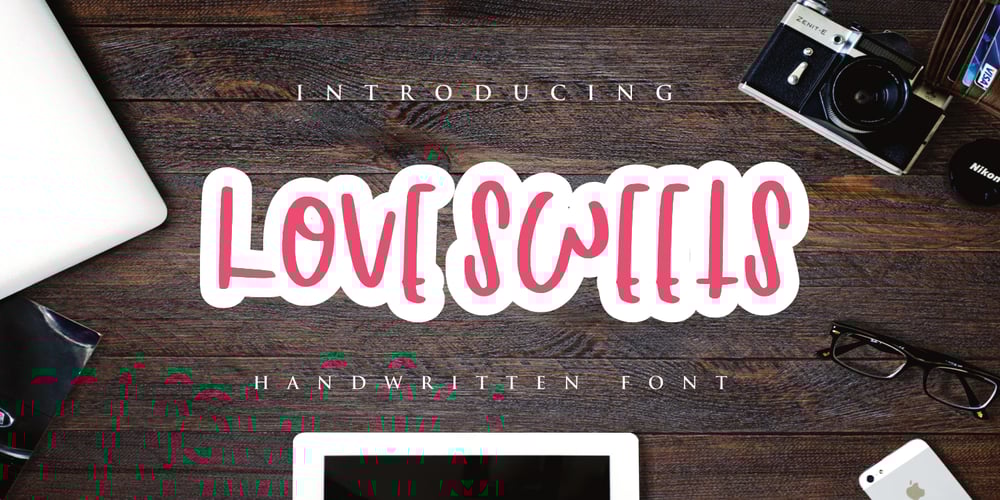
Love Sweets
Love Sweets font
Love Sweets Font Family was designed by Mariyana and published by Goodigital13. Love Sweets contains 1 styles and family package options. perfectly suited to signature, stationery, logo, typography quotes, magazine or book cover, website header, clothing, branding, packaging design and more.With the script style this modern font will be perfect for many different projects: watermarks, posters, weddings, branding, logos, fashion, clothes, letters, invitations.